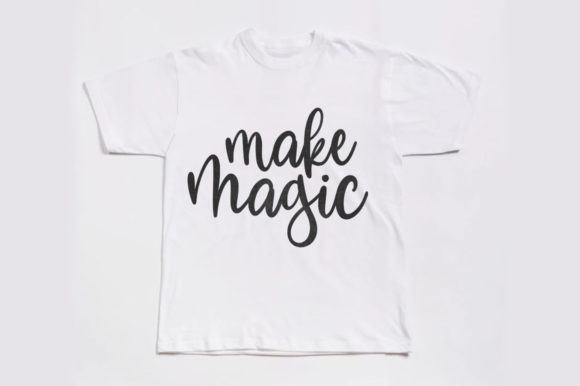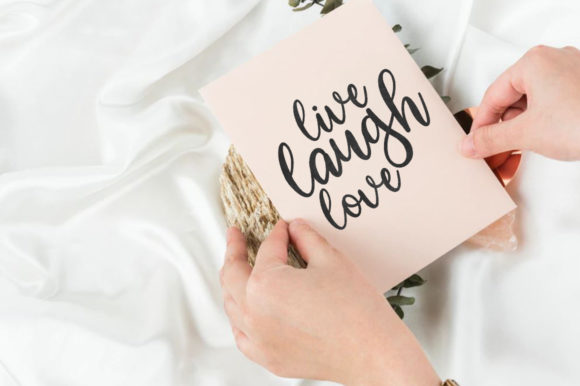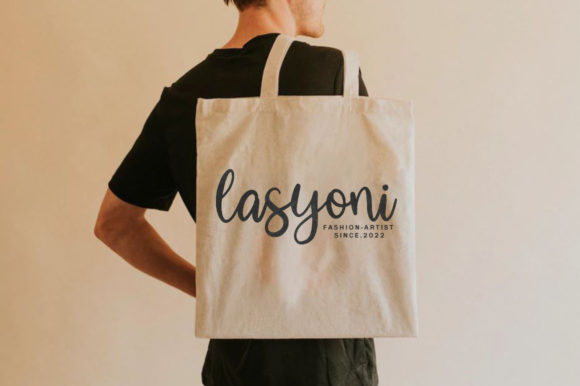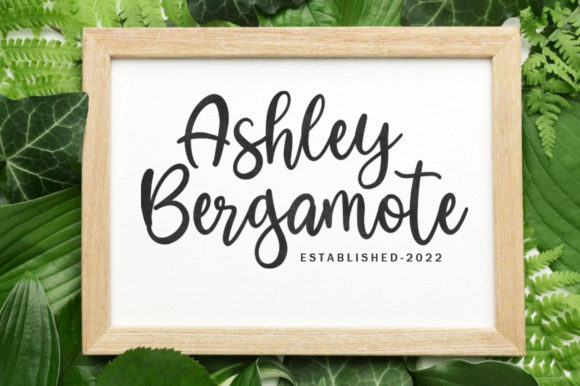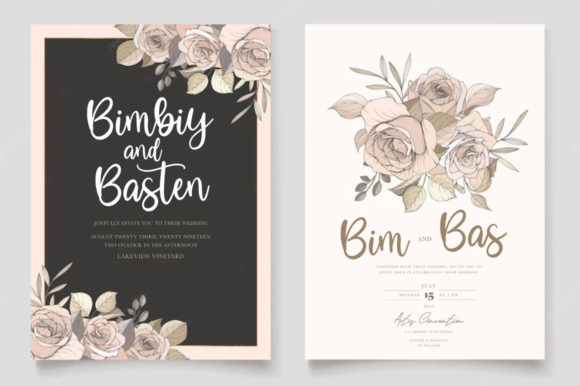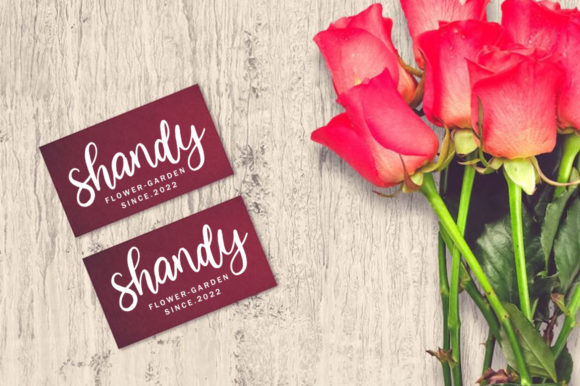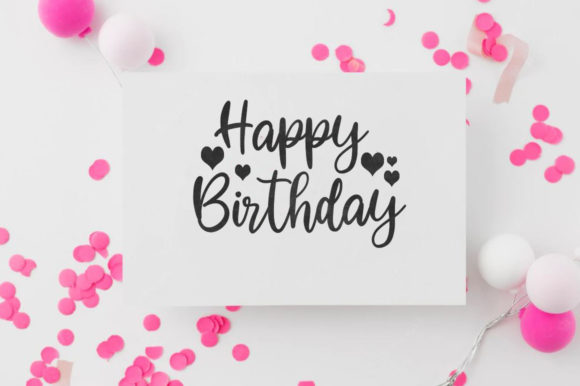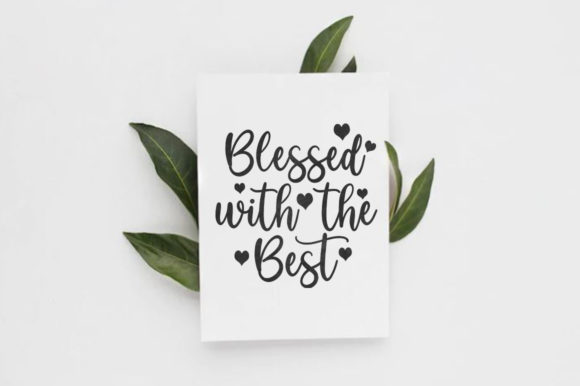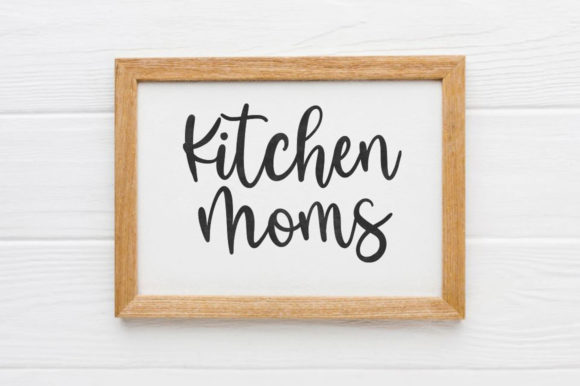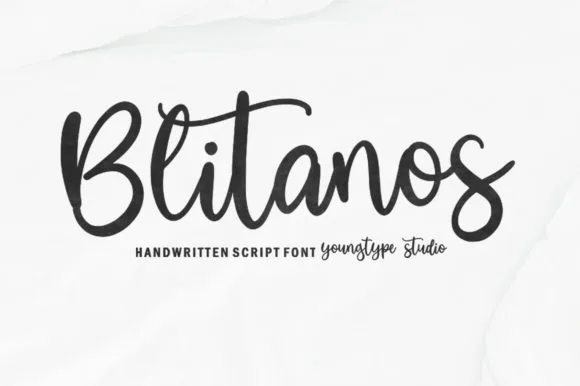
Blitanos Font
About Blitanos Font
“Blitanos” is a captivating hand-brushed handwritten font that boasts a bold and irregular baseline, lending a distinctive and artistic touch to your designs. The font’s unique characteristics make it an excellent choice for a wide variety of creative projects, especially those that aim to capture a watercolor or hand-lettering aesthetic.
The irregular baseline of “Blitanos” gives the font a spontaneous and dynamic feel. This feature mimics the natural flow of handwriting and adds a sense of authenticity to your designs. The irregularity in the baseline creates a visual rhythm that draws the eye and adds an element of visual interest.
The bold strokes of “Blitanos” contribute to its striking appearance. The boldness of the letterforms makes them stand out and ensures high legibility even in larger sizes. This makes the font suitable for various design applications, from blog headers and posters to apparel and merchandise.
The font’s hand-brushed quality gives it a handcrafted and personalized look, making it an ideal choice for designs that aim to convey a sense of authenticity and creativity. “Blitanos” is perfect for projects where you want to evoke a warm and welcoming vibe, such as wedding elements, greeting cards, and handmade quotes.
With its versatile nature, “Blitanos” can be utilized across a range of media, both digital and print. It works well for creating visually appealing graphics, such as t-shirt designs, business cards, book covers, and invitations. The font’s ability to blend seamlessly with watercolor elements and lettering styles makes it a great asset for artists and designers seeking a touch of artistic flair.
Whether you’re working on a casual project or a more sophisticated design, “Blitanos” brings a level of uniqueness and character that sets your work apart. Its bold and irregular baseline, combined with its hand-brushed aesthetic, offers an organic and engaging visual experience that resonates with a wide audience.
In summary, “Blitanos” is a versatile and expressive font that captures the essence of hand-brushed handwriting. Its irregular baseline, bold strokes, and authentic appearance make it suitable for a range of creative projects, allowing you to infuse your designs with a sense of creativity, warmth, and personality.